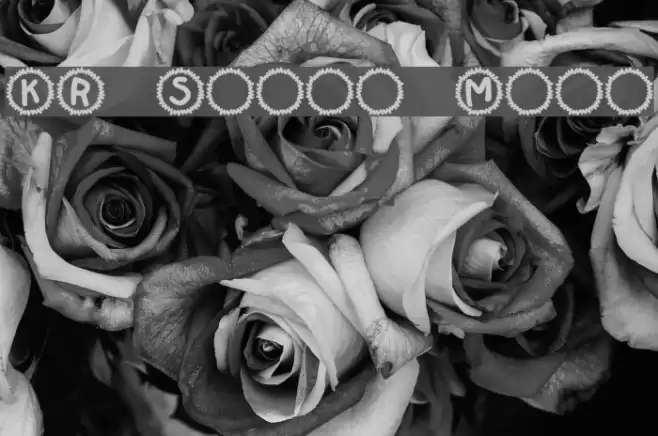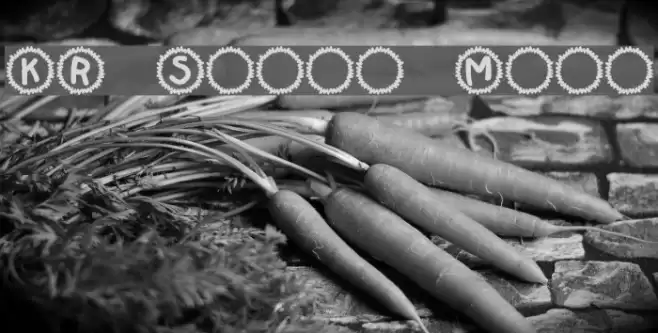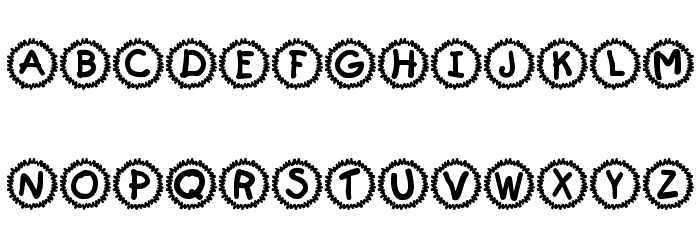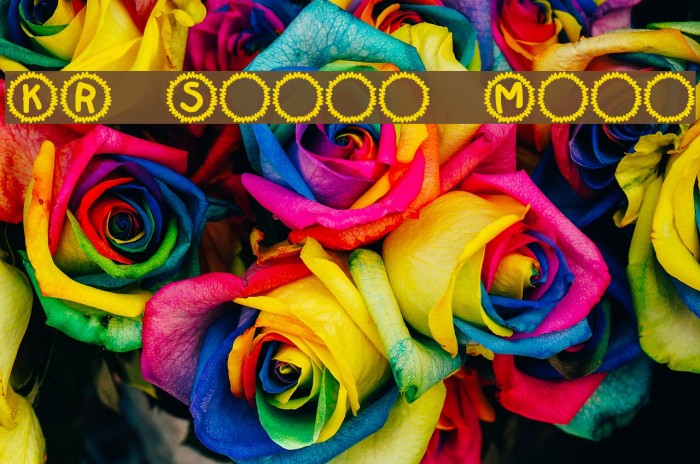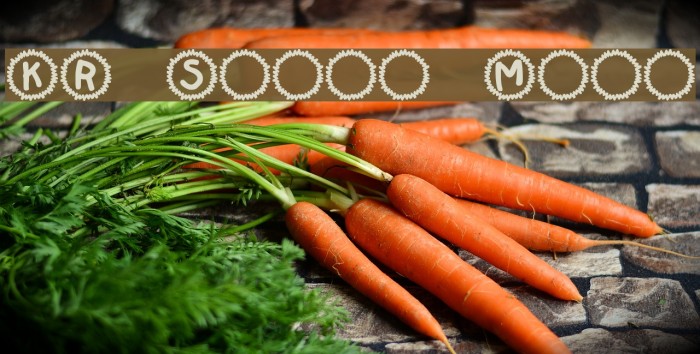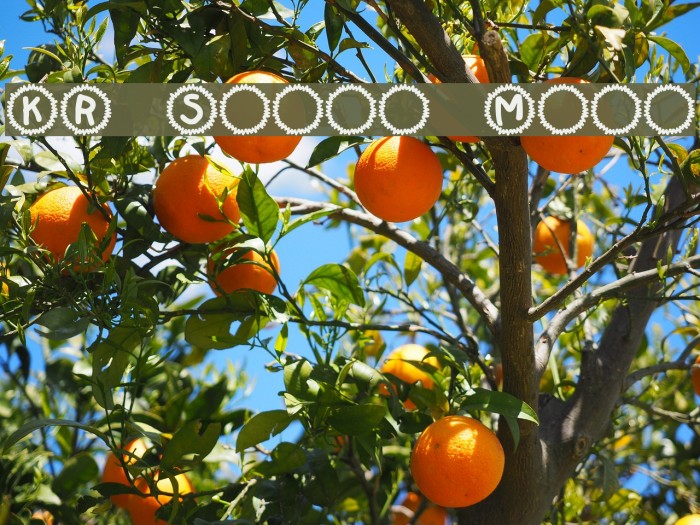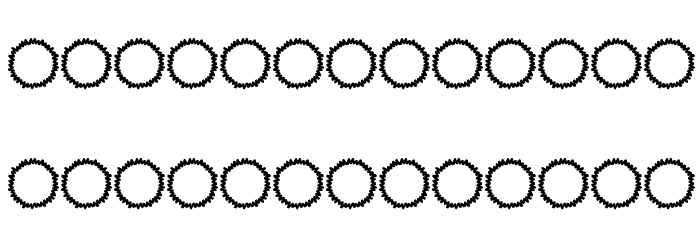
KR Sami's Mark Font
KR Sami's Mark Description
This font features a unique decorative style where each character is enclosed within a circular, jagged border resembling a wreath or a spiky halo. The characters themselves are bold and sans-serif, providing a clear and modern look that contrasts with the intricate border. This design creates a playful yet sophisticated appearance, making it suitable for eye-catching displays. The uppercase letters are prominently displayed, emphasizing clarity and readability within their ornate frames.
A bold, sans-serif font with each character encased in a decorative, jagged circular border from Dotted fonts.